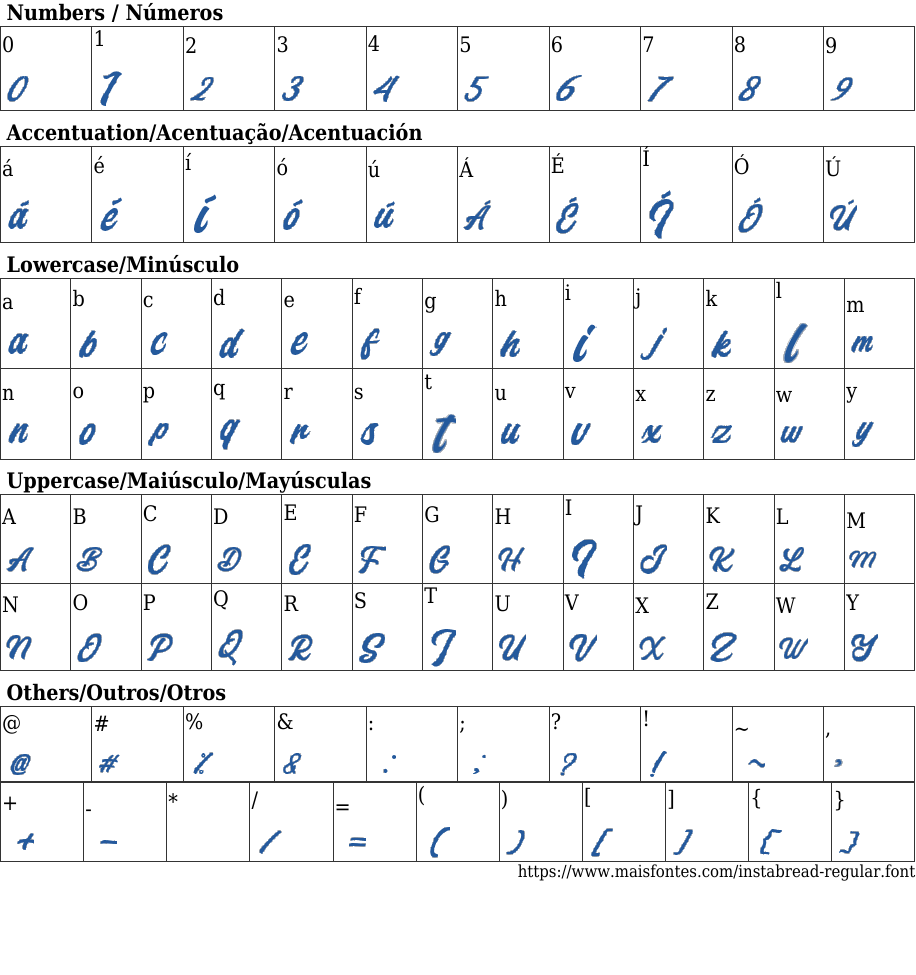
Instabread Regular Font Free - This font features a bold and. Examples of this font can be found on the font site exfont, designed by motokiwo, include the number of glyphs 217. Instabread is an incredibly distinct, delicate and timeless handwritten font. It looks stunning on wedding invitations, thank you. Bold, flowing script with smooth curves and playful energy.
It looks stunning on wedding invitations, thank you. This font features a bold and. Examples of this font can be found on the font site exfont, designed by motokiwo, include the number of glyphs 217. Instabread is an incredibly distinct, delicate and timeless handwritten font. Bold, flowing script with smooth curves and playful energy.
This font features a bold and. It looks stunning on wedding invitations, thank you. Bold, flowing script with smooth curves and playful energy. Examples of this font can be found on the font site exfont, designed by motokiwo, include the number of glyphs 217. Instabread is an incredibly distinct, delicate and timeless handwritten font.
Bold, flowing script with smooth curves and playful energy. Instabread is an incredibly distinct, delicate and timeless handwritten font. It looks stunning on wedding invitations, thank you. This font features a bold and. Examples of this font can be found on the font site exfont, designed by motokiwo, include the number of glyphs 217.
Bold, flowing script with smooth curves and playful energy. This font features a bold and. Instabread is an incredibly distinct, delicate and timeless handwritten font. It looks stunning on wedding invitations, thank you. Examples of this font can be found on the font site exfont, designed by motokiwo, include the number of glyphs 217.
Bold, flowing script with smooth curves and playful energy. Instabread is an incredibly distinct, delicate and timeless handwritten font. It looks stunning on wedding invitations, thank you. This font features a bold and. Examples of this font can be found on the font site exfont, designed by motokiwo, include the number of glyphs 217.
Bold, flowing script with smooth curves and playful energy. Instabread is an incredibly distinct, delicate and timeless handwritten font. Examples of this font can be found on the font site exfont, designed by motokiwo, include the number of glyphs 217. This font features a bold and. It looks stunning on wedding invitations, thank you.
Instabread Bold Script Font
Instabread is an incredibly distinct, delicate and timeless handwritten font. This font features a bold and. It looks stunning on wedding invitations, thank you. Examples of this font can be found on the font site exfont, designed by motokiwo, include the number of glyphs 217. Bold, flowing script with smooth curves and playful energy.
It looks stunning on wedding invitations, thank you. Examples of this font can be found on the font site exfont, designed by motokiwo, include the number of glyphs 217. This font features a bold and. Bold, flowing script with smooth curves and playful energy. Instabread is an incredibly distinct, delicate and timeless handwritten font.
This font features a bold and. Examples of this font can be found on the font site exfont, designed by motokiwo, include the number of glyphs 217. Bold, flowing script with smooth curves and playful energy. Instabread is an incredibly distinct, delicate and timeless handwritten font. It looks stunning on wedding invitations, thank you.
Instabread Bold Script Font
This font features a bold and. It looks stunning on wedding invitations, thank you. Bold, flowing script with smooth curves and playful energy. Examples of this font can be found on the font site exfont, designed by motokiwo, include the number of glyphs 217. Instabread is an incredibly distinct, delicate and timeless handwritten font.
Bold, flowing script with smooth curves and playful energy. Instabread is an incredibly distinct, delicate and timeless handwritten font. Examples of this font can be found on the font site exfont, designed by motokiwo, include the number of glyphs 217. It looks stunning on wedding invitations, thank you. This font features a bold and.
Examples of this font can be found on the font site exfont, designed by motokiwo, include the number of glyphs 217. It looks stunning on wedding invitations, thank you. Instabread is an incredibly distinct, delicate and timeless handwritten font. This font features a bold and. Bold, flowing script with smooth curves and playful energy.
Bold, Flowing Script With Smooth Curves And Playful Energy.
It looks stunning on wedding invitations, thank you. This font features a bold and. Examples of this font can be found on the font site exfont, designed by motokiwo, include the number of glyphs 217. Instabread is an incredibly distinct, delicate and timeless handwritten font.